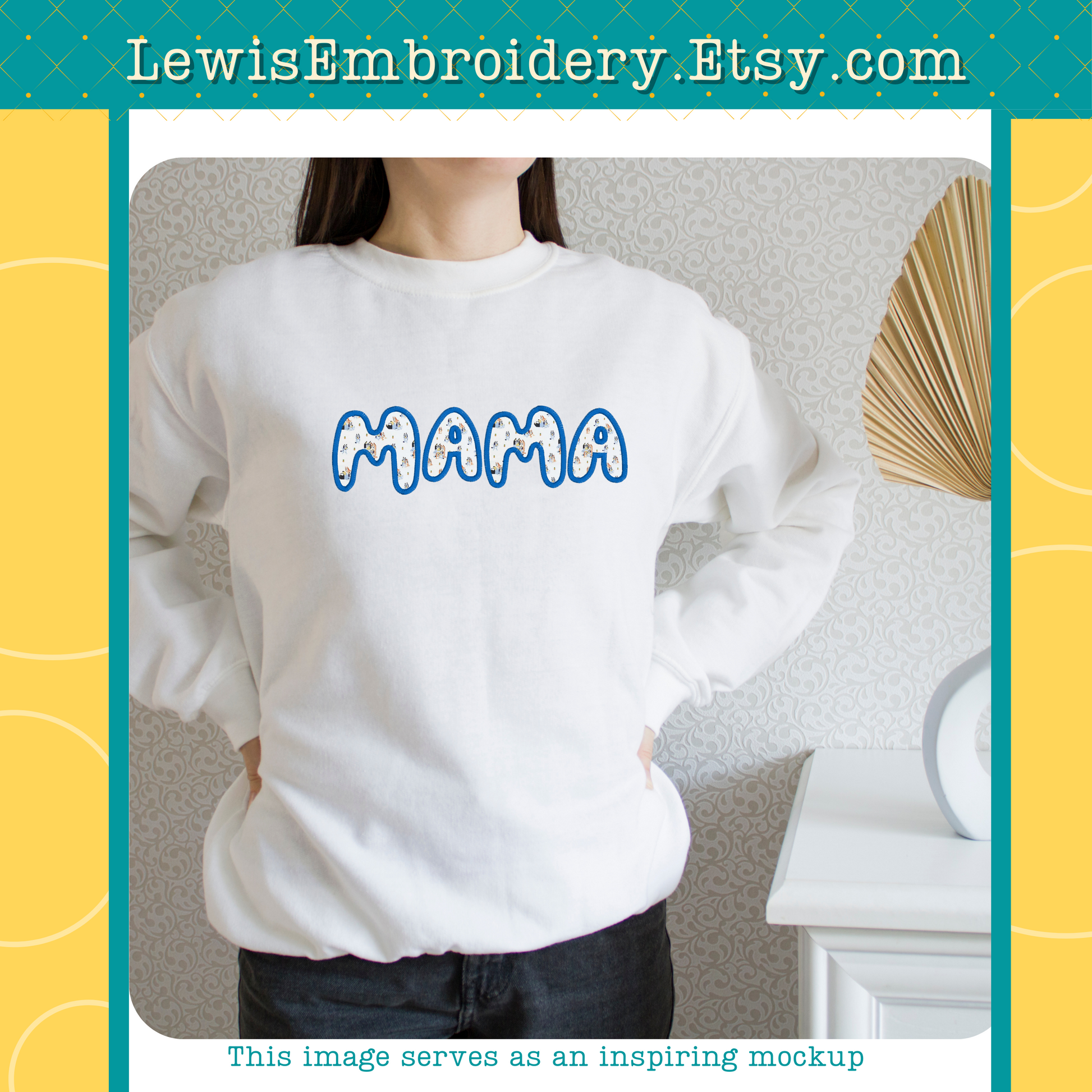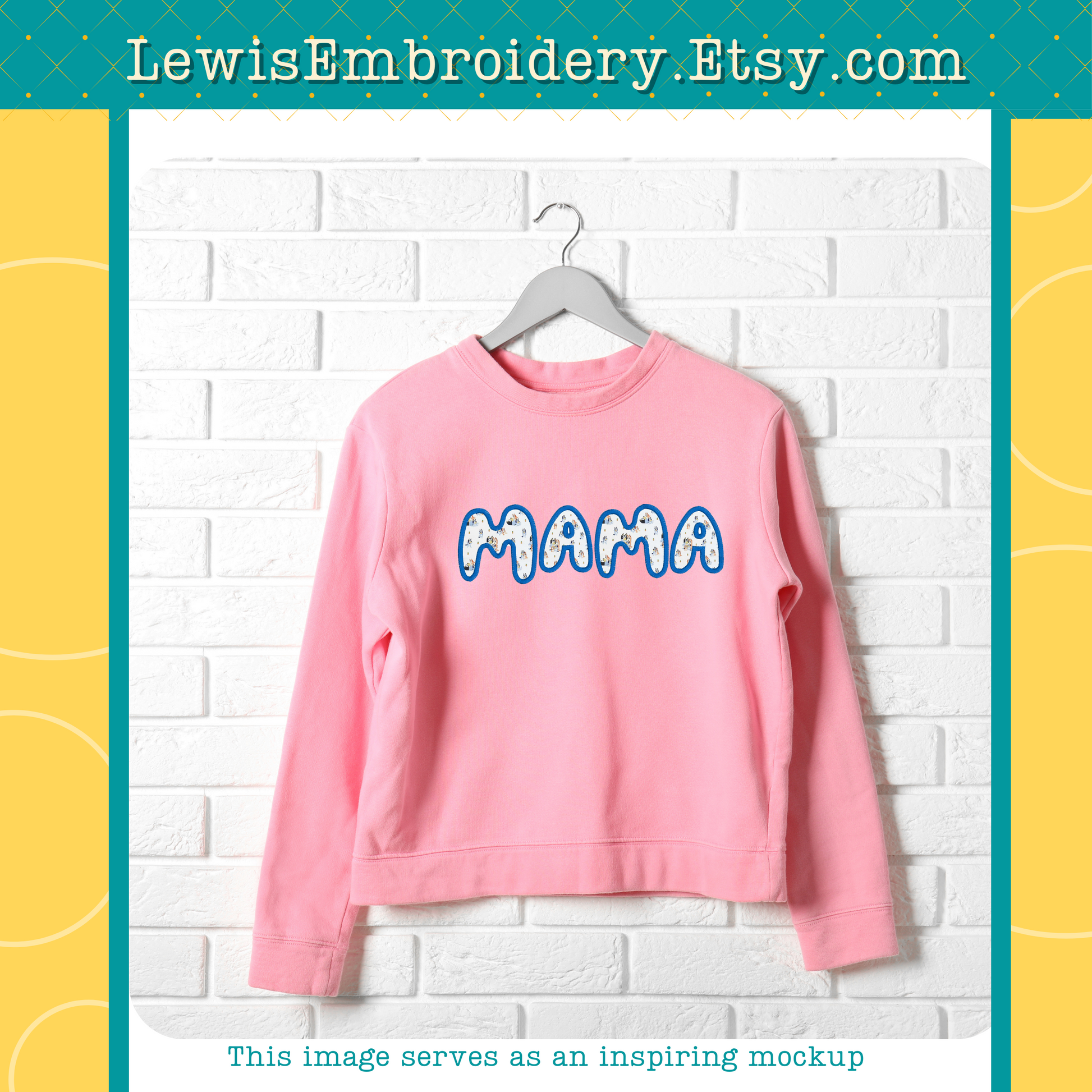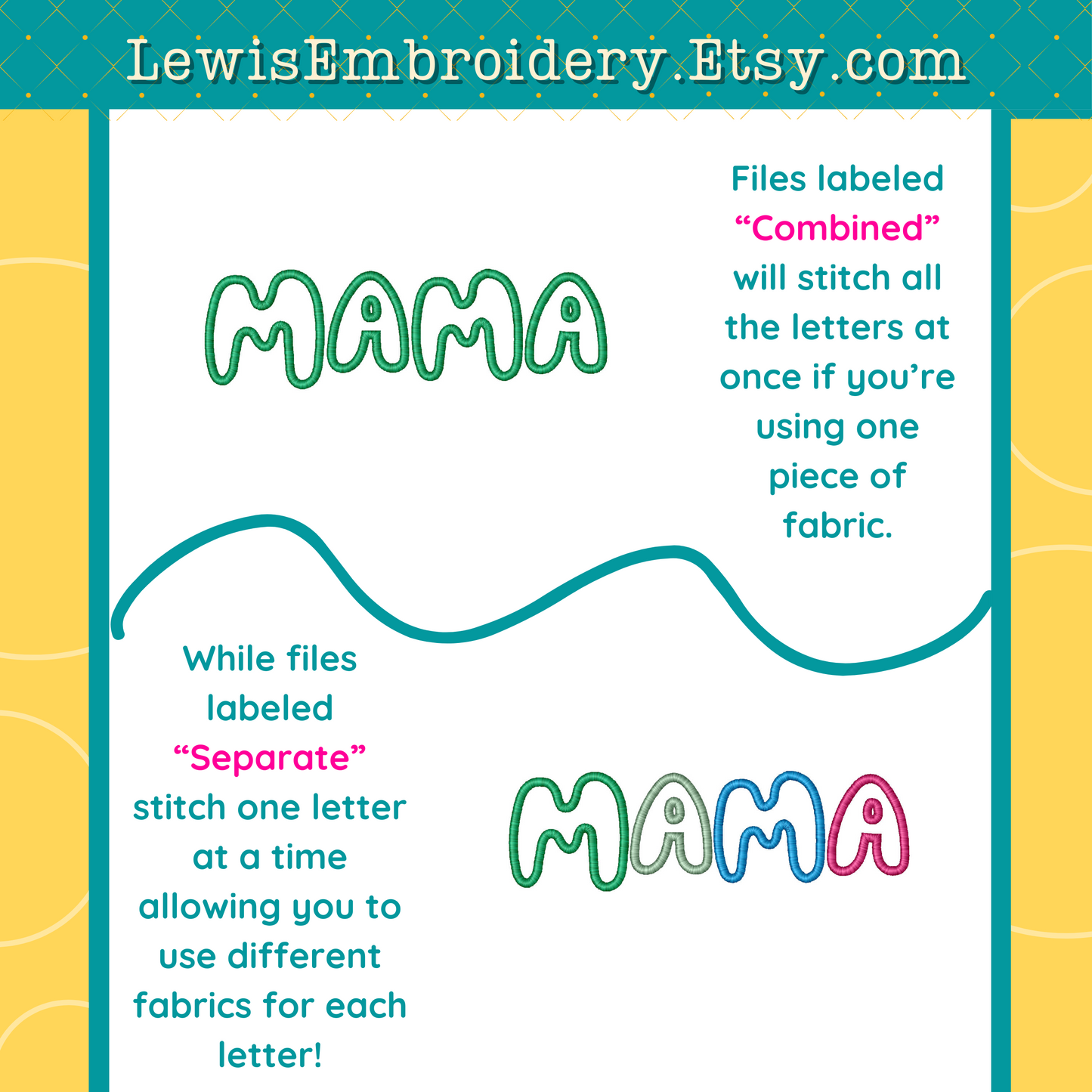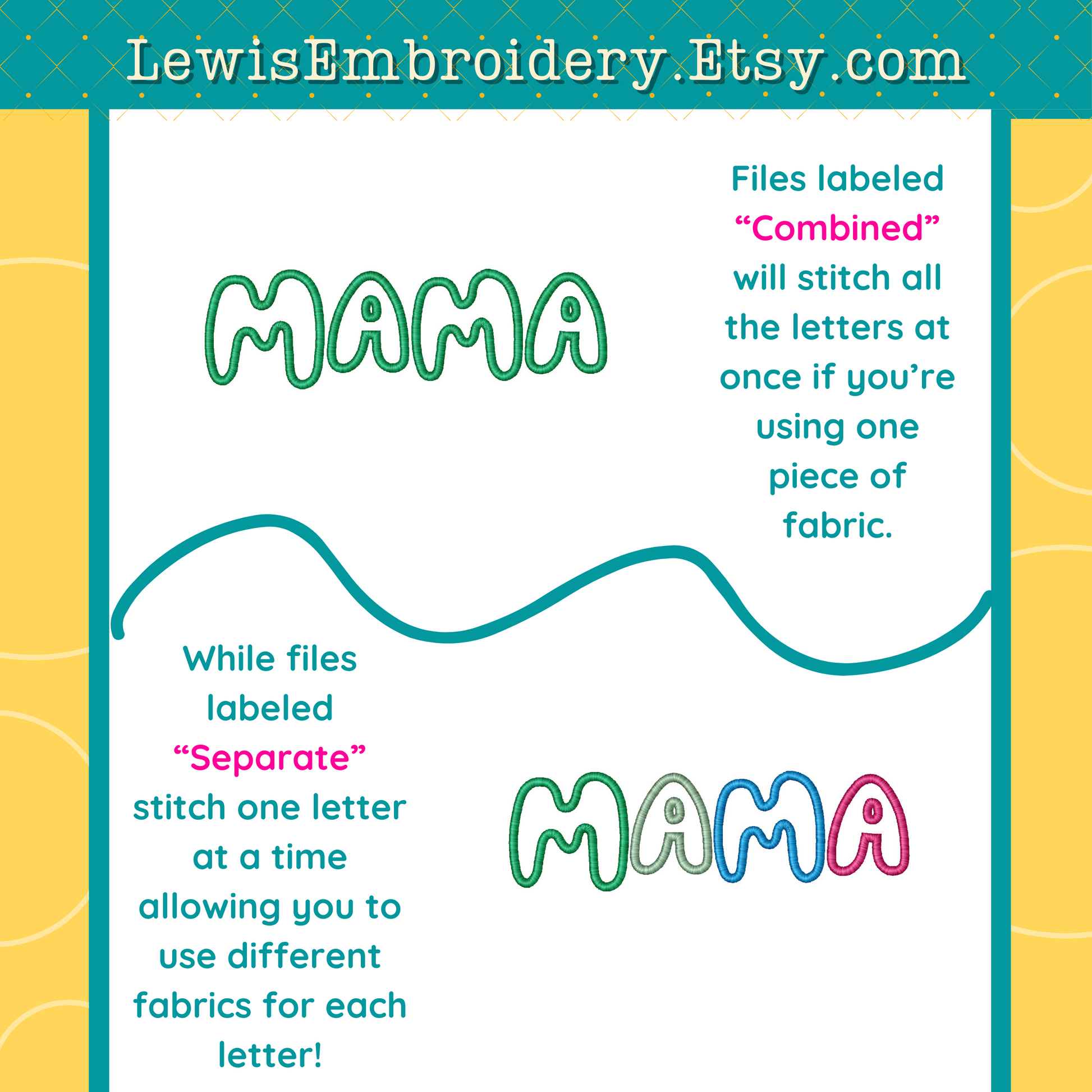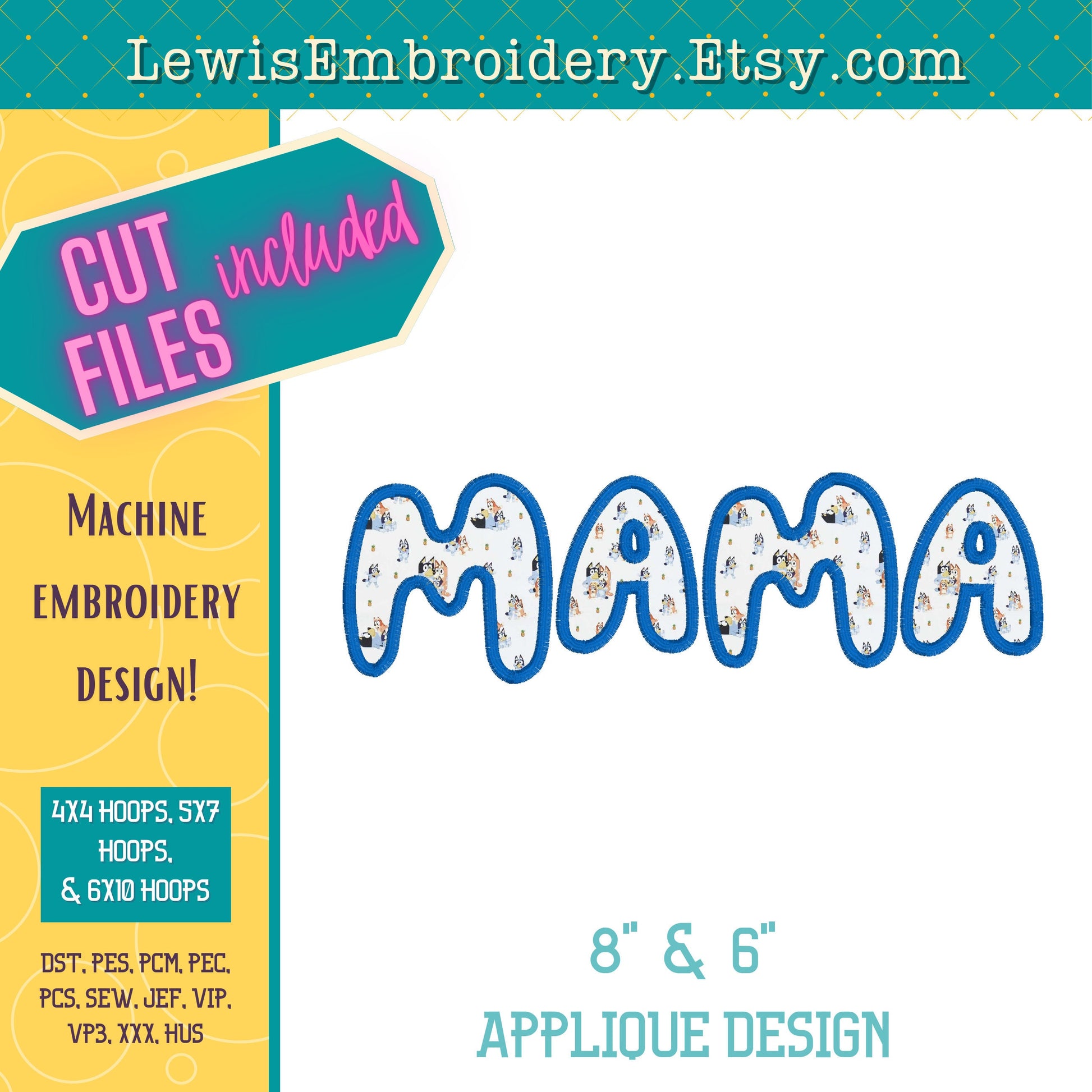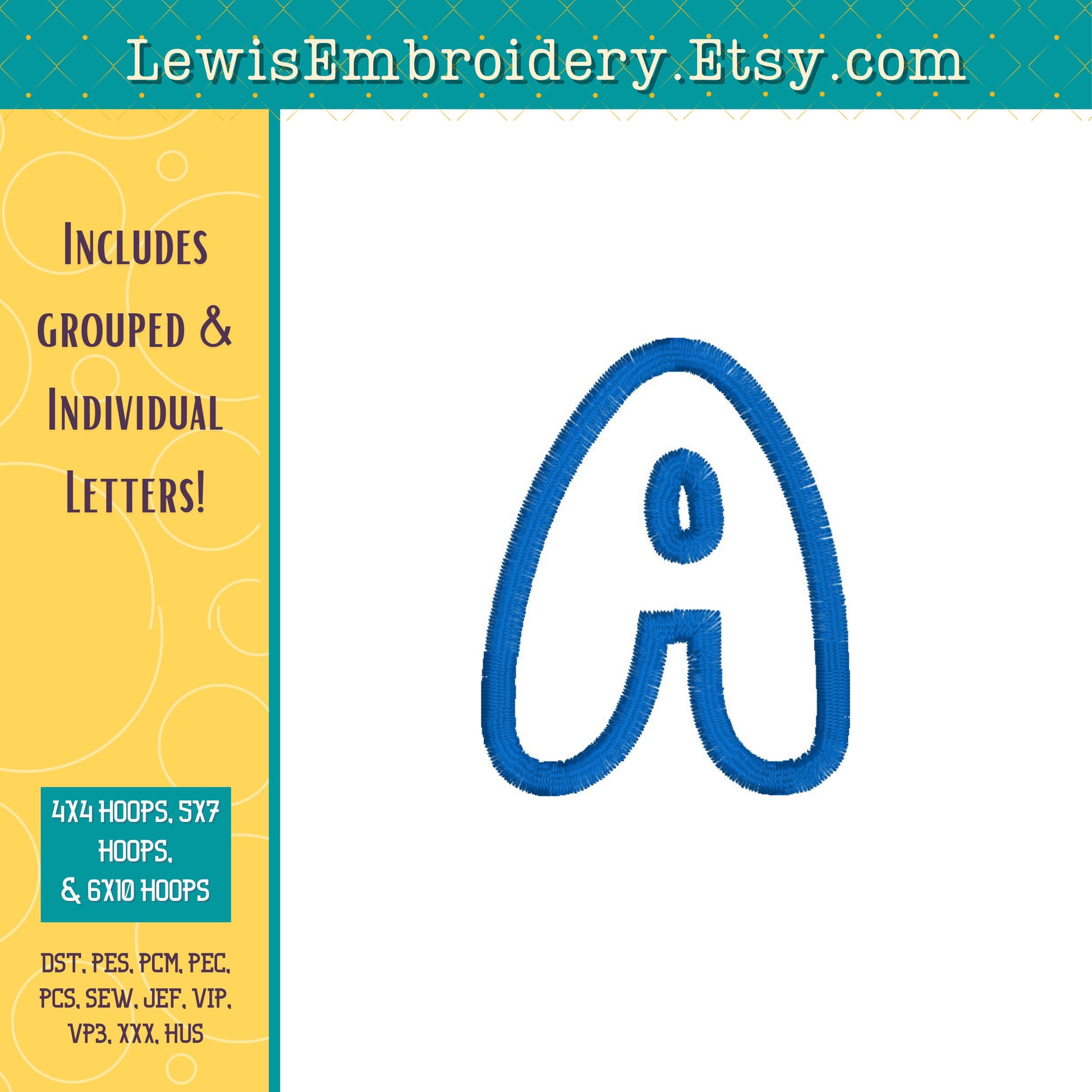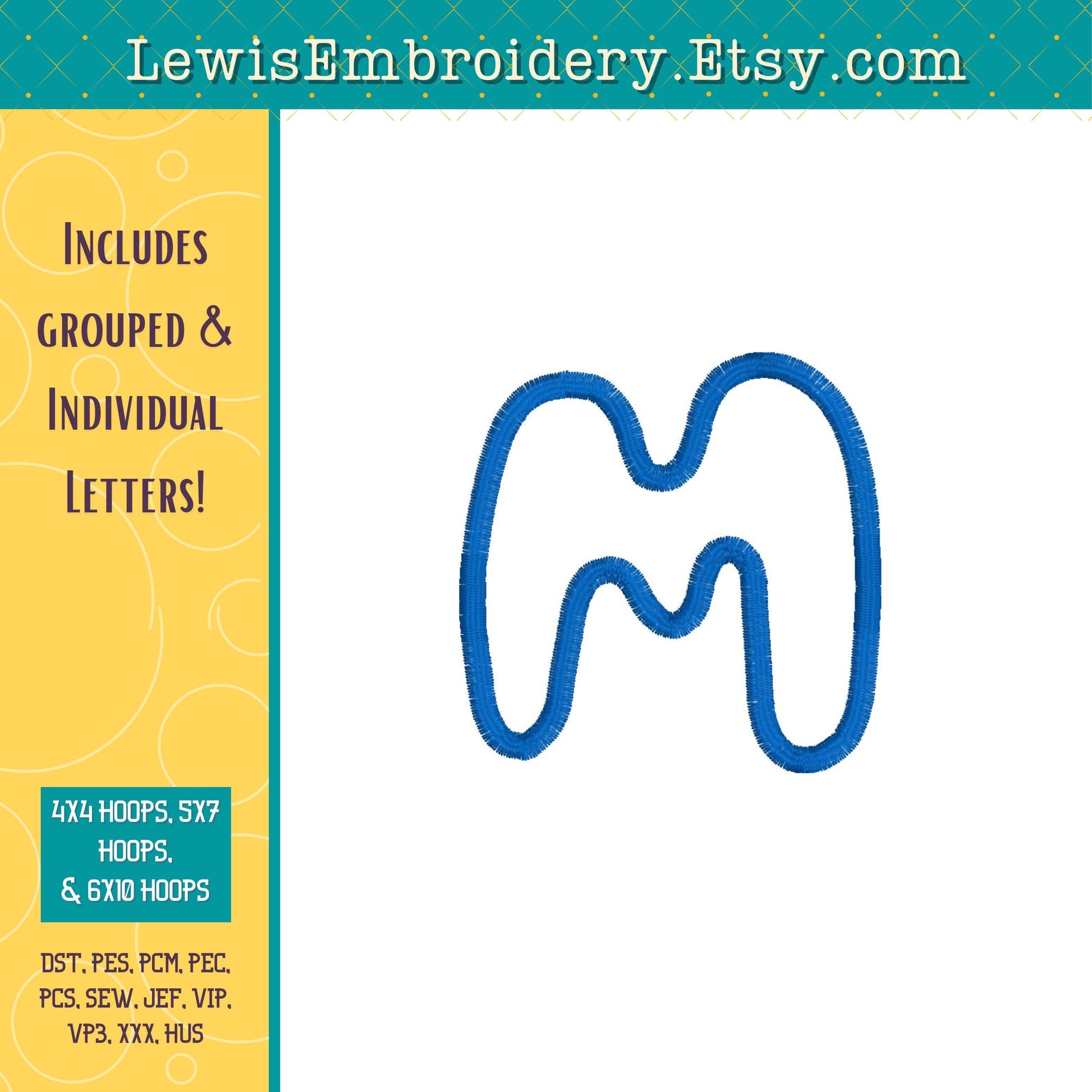
"MAMA" Applique, Bluey, Machine Embroidery Design – Not Full Font - (Digital Download)
We all know how popular these MAMA shirts have been! Here is a fun twist for all the Bluey fans out there.
- "MAMA" design in our fun Bluey font (not full font)
Why This Design Stands Out
- Cute handmade look